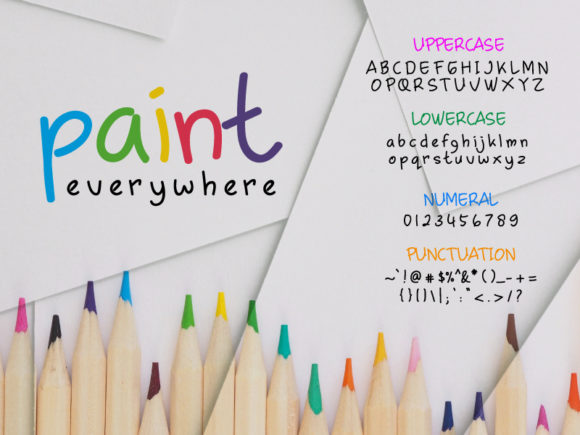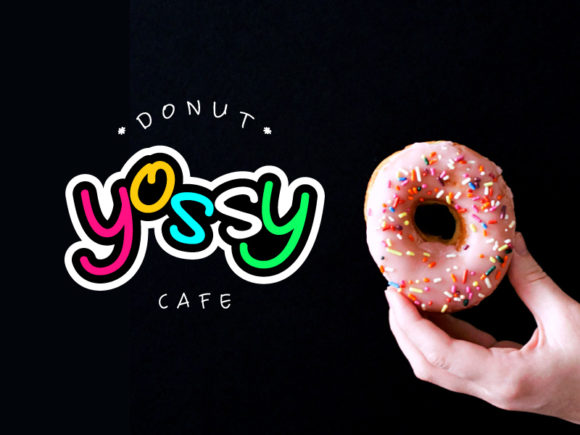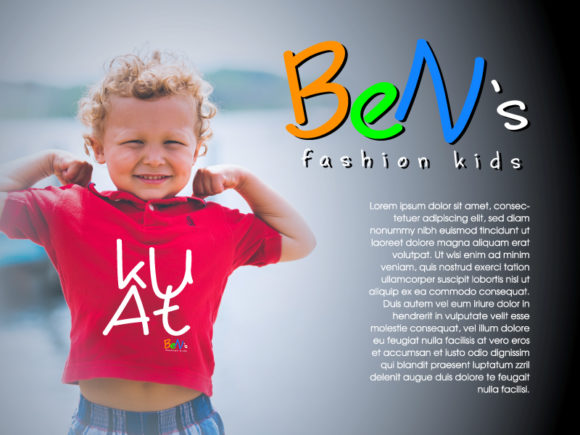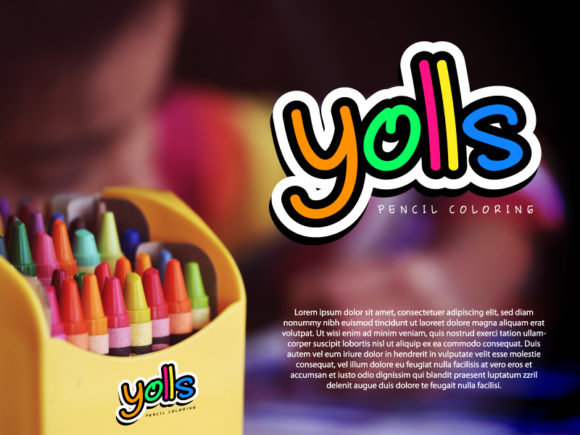
Discover the Joy of Handwritten Design with Chamilla Kids Font
Remember the feeling of scribbling in your favorite notebook as a child? The messy, yet magical lines that brought your imagination to life? That same sense of freedom and creativity can now be captured in your design projects with the Chamilla Kids Font.
This beautiful, playful handwritten font has a bold feel that will turn any design project into a standout. Whether you’re creating a children’s book, a birthday invitation, or a social media post, the Chamilla Kids Font will add a touch of whimsy and personality to your work. As a designer, you know how valuable it is to have a versatile font that can elevate your designs and make them truly memorable.
With the Chamilla Kids Font, you’ll be able to bring your ideas to life in a way that’s both fun and professional. Its unique, handwritten style is perfect for designers who want to add a touch of personality to their work without sacrificing readability or sophistication.
Key Features of Chamilla Kids Font
- Font Style: Chamilla Kids is a playful, child-friendly font with rounded edges and a fun design, making it perfect for kids’ materials, educational resources, and children’s products.
- Character Set: Includes a wide range of characters, including uppercase and lowercase letters, numbers, punctuation marks, and special characters, ensuring that you have everything you need to create engaging content.
- Unique Characteristics: This font features a unique blend of modern and traditional elements, with a friendly and approachable feel that is sure to captivate young readers and learners.
Chamilla Kids Font Review
Overall, I think the Chamilla Kids Font is a great addition to any designer’s toolkit. It’s a fun, playful font that’s perfect for children’s books, educational materials, and other projects where you want to add a touch of whimsy. ✨ The font is highly customizable, with a wide range of styles and sizes available.
- Fun and playful feel that’s perfect for children’s projects
- Highly customizable with a wide range of styles and sizes
- Includes a variety of ligatures and swashes to add flair
However, I do have a few concerns about the font’s limitations. ✠ The font is only available in a limited range of weights, which may make it difficult to use in certain situations. Additionally, the font’s design can be a bit over-the-top at times, which may not be suitable for all projects. ⚠️
Despite these limitations, I think the Chamilla Kids Font is a great choice for designers who want to add a touch of personality to their projects. With its playful feel and high level of customizability, it’s a great option for anyone working on children’s projects or other creative endeavors.
Chamilla Kids Font Practical Application Guide
To get the most out of it, experiment with different font sizes, colors, and combinations to create a visually appealing design.
For optimal results, pair the font with bold lines, bright colors, and playful shapes to create a whimsical atmosphere.
The Chamilla Kids Font is ideal for:
Children’s party invitations and decorations
Education materials, such as worksheets and activity sheets
Fun and playful social media graphics
Custom illustrations and graphics for kids’ products